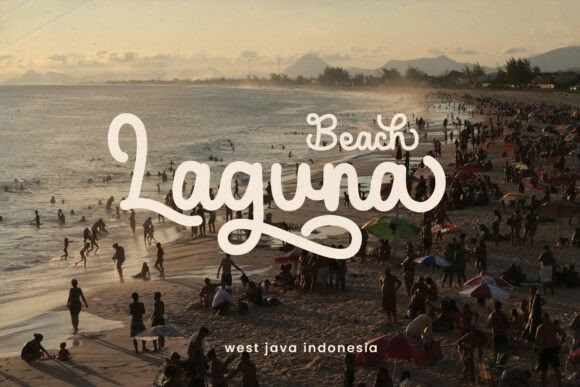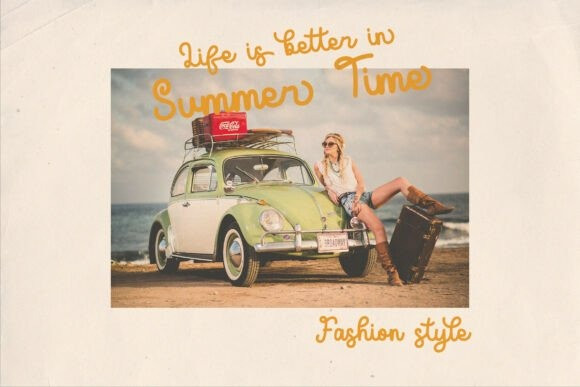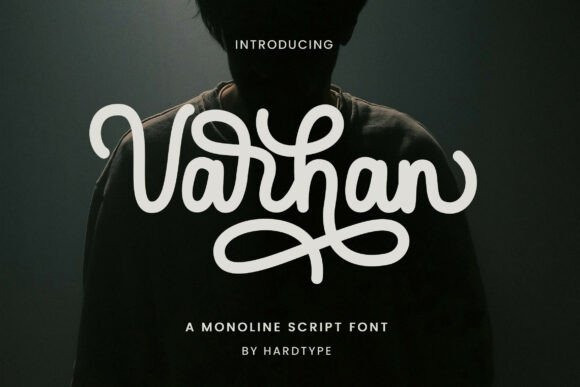
Varhan Script Font
Varhan Script Font is a hand-script font. It’s smooth and elegant and will leave a great impression. The Varhan font features loads of extra characters and swashes. You can use this font for wedding invitations, thank you cards, quotes, greeting cards, logos, business cards, and every other design that needs a customized touch.